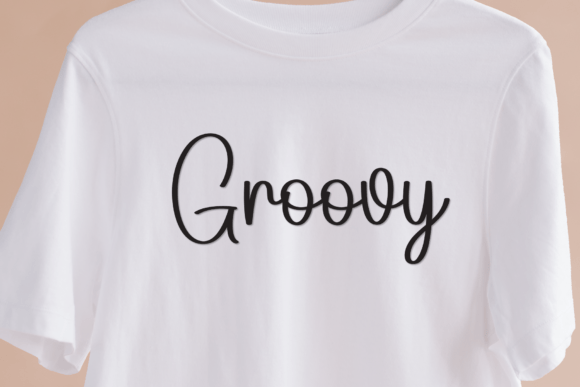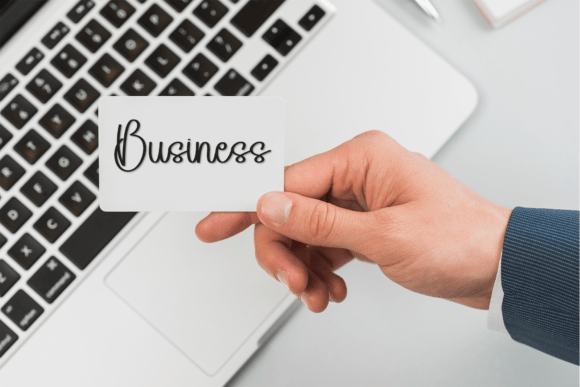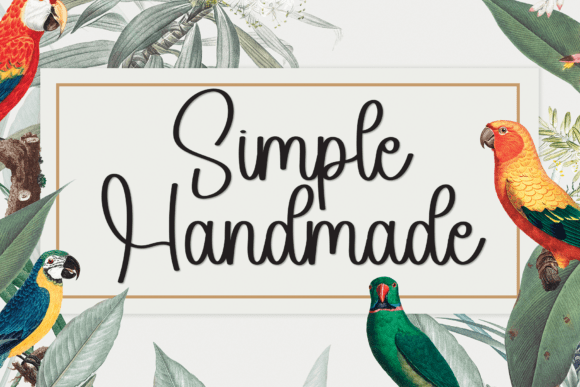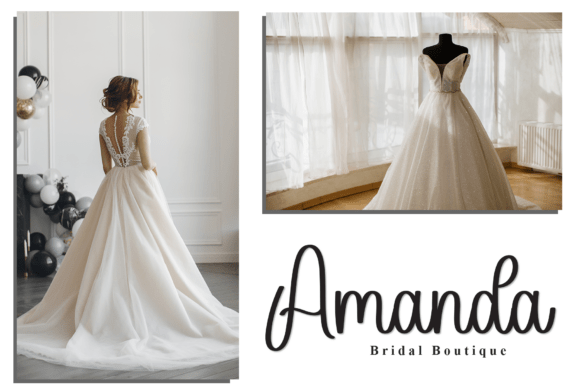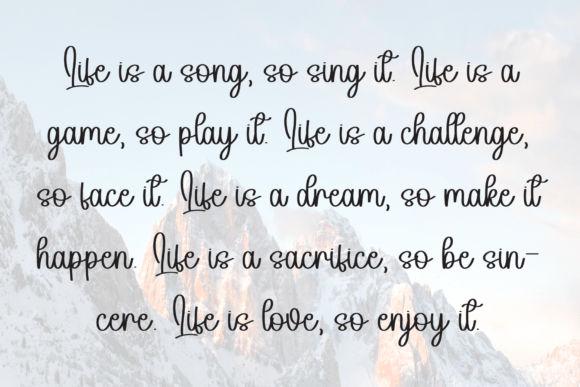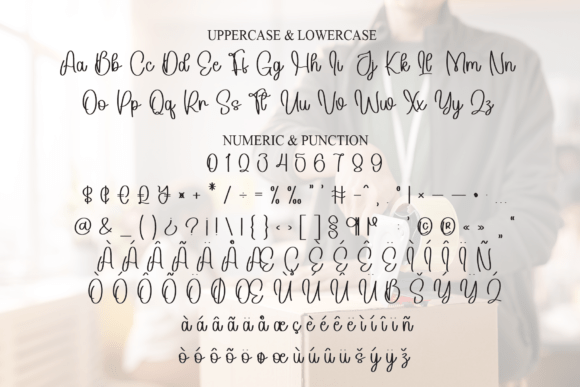
Introducing Handling Font: A Delightfully Warm and Personable Handwritten Display Font
Are you looking for a font that can add a touch of warmth and personality to your designs? Look no further than Handling Font, a beautifully crafted handwritten display font that exudes an enchanting sweetness. This delightful font is perfect for designers and crafters who want to infuse charm into their wedding invitations, heartfelt cards, or any design project seeking an element of playful sophistication.
A Wonderful Blend of Cute and Entertaining
Handling Font is a unique blend of cute and entertaining, making it the quintessential choice for designers who want to add a touch of whimsy to their designs. The font’s playful and charming nature makes it perfect for wedding invitations, greeting cards, and other designs where you want to convey a sense of warmth and personality. Whether you’re designing for a client or working on a personal project, Handling Font is sure to impress.
Perfect for Wedding Invitations and Heartfelt Cards
Wedding invitations and heartfelt cards require a special kind of font that can convey the emotions and sentimentality of the occasion. Handling Font is specifically designed to meet this need, with its delicate and charming lettering that is sure to capture the hearts of your audience. The font’s sweetness and playfulness make it perfect for:
- Wedding invitations and save-the-date cards
- Heartfelt cards and letters
- Personalized gifts and stationery
- Design projects that require a touch of whimsy and playfulness
Key Features of Handling Font
So, what makes Handling Font so special? Here are some of its key features:
- Delightfully warm and personable handwritten display font
- Enchanting sweetness and playful charm
- Perfect blend of cute and entertaining
- Suitable for wedding invitations, heartfelt cards, and design projects
In conclusion, Handling Font is a beautifully crafted handwritten display font that is sure to add a touch of warmth and personality to your designs. Its delightful sweetness and playful charm make it perfect for wedding invitations, heartfelt cards, and design projects that require a touch of whimsy and playfulness. With its ease of use, versatility, and high-quality design, Handling Font is a must-have for designers and crafters who want to create stunning designs that capture the hearts of their audience.